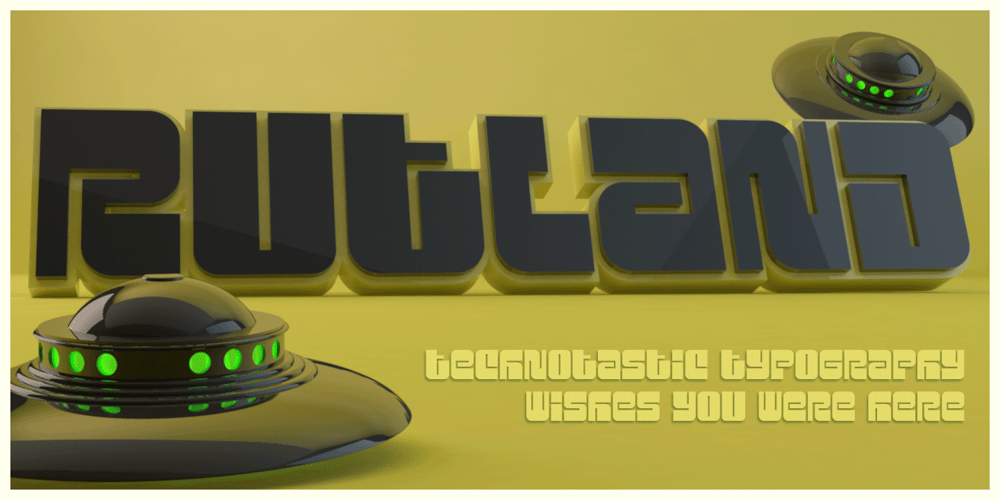
Rutland AOE
Rutland AOE font
Rutland AOE Font Family was designed by Brian J. Bonislawsky and published by Astigmatic. Rutland AOE contains 1 styles and family package options. 80’s technotronic meets out of this world style in Rutland AOE. From its beefy weight to its narrow counters, Rutland AOE started as a digitization of a film typeface called Maccaro by LetterGraphics. This bulky technotastic typeface was taken from its limited character set and fleshed out to include an expanded language glyph set. This interstellar alphabet funhouse screams electronica/house flyers, space games, alien invasions and more. Rutland AOE is ready to abduct your designs.